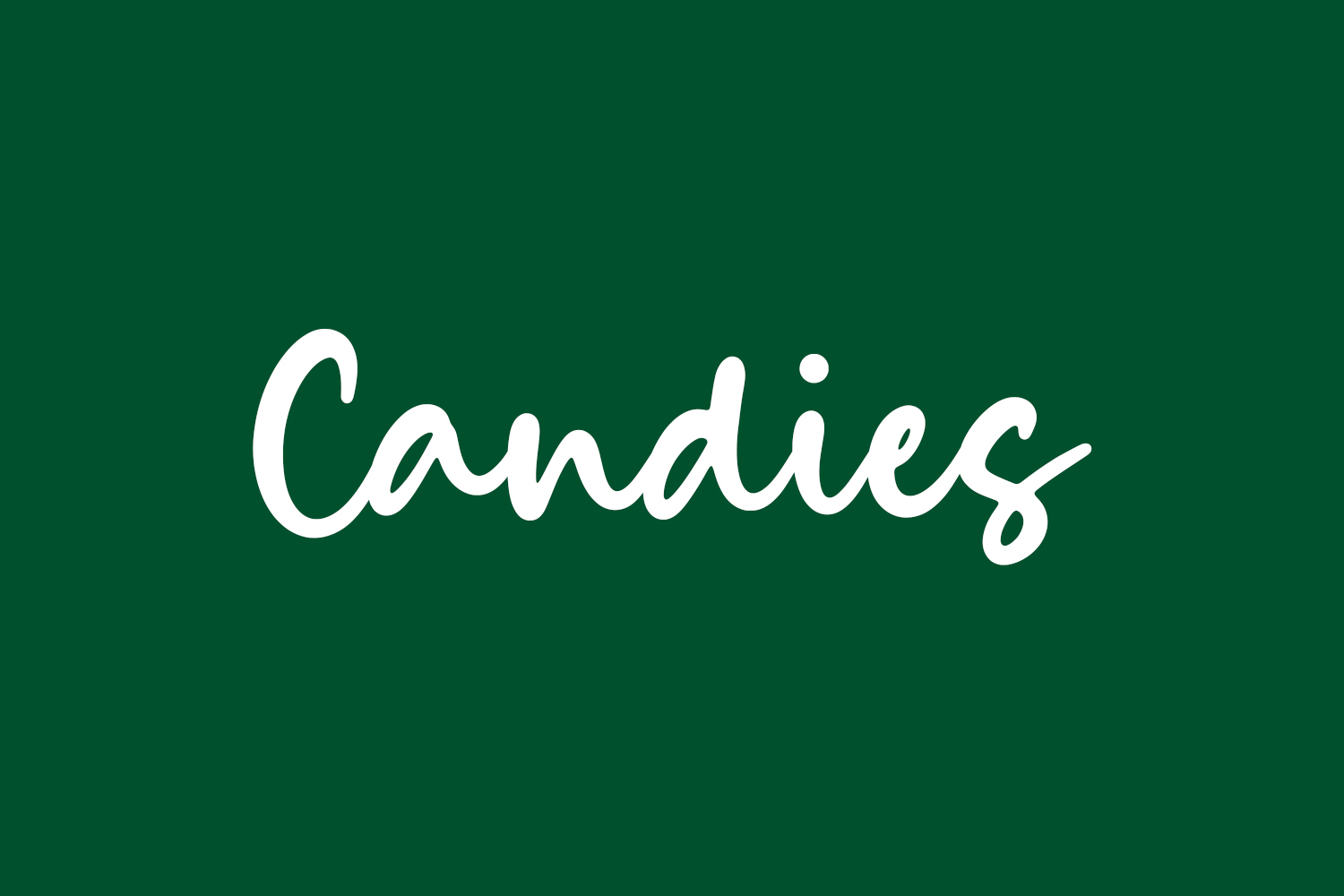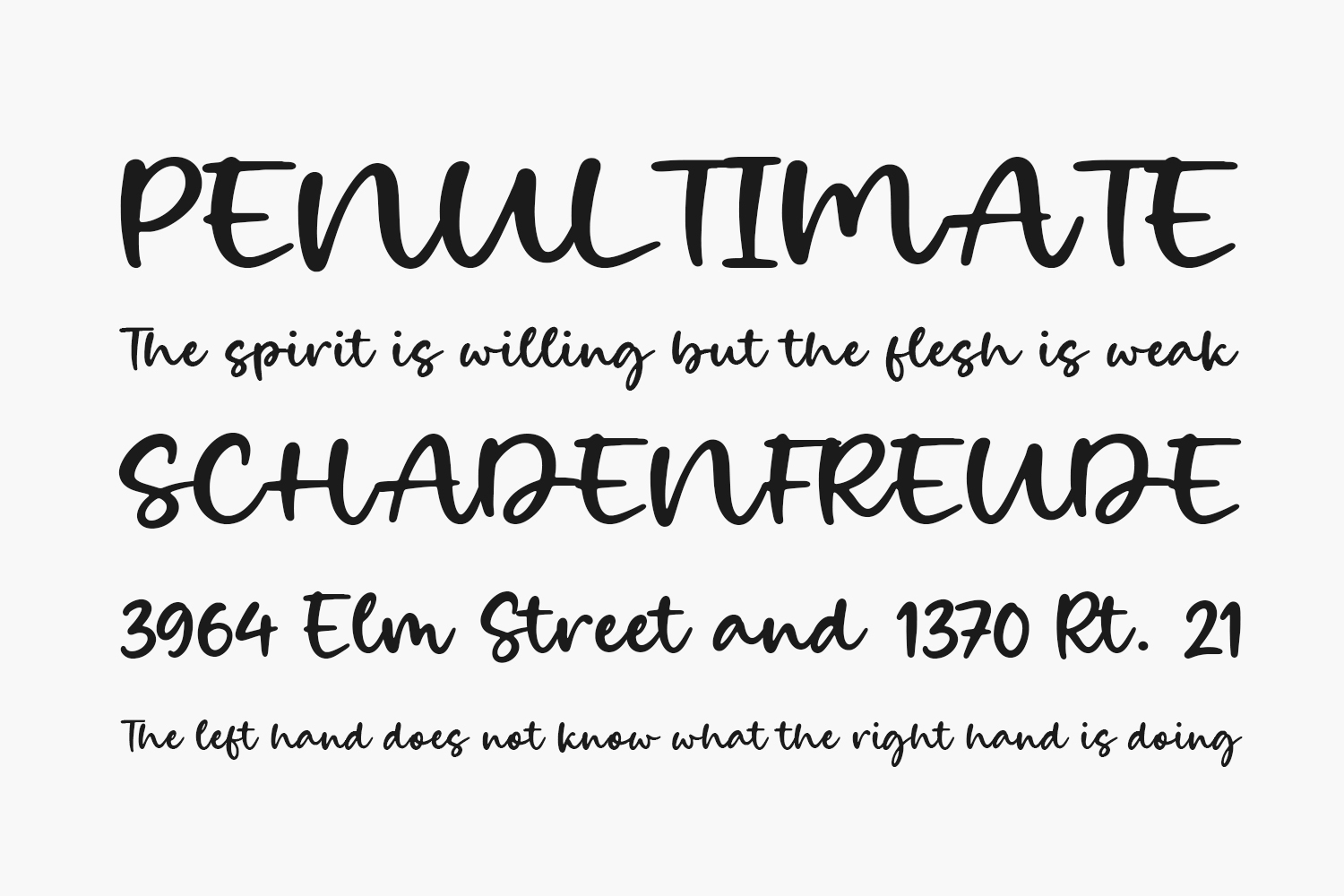
Candies Free Font is a fresh and playful handwritten font. Its casual charm is perfect for a wide spectrum of crafty ideas. Download the font for free if you need it for personal use or purchase the full version for commercial use.